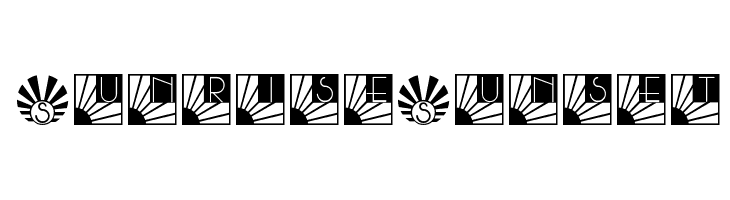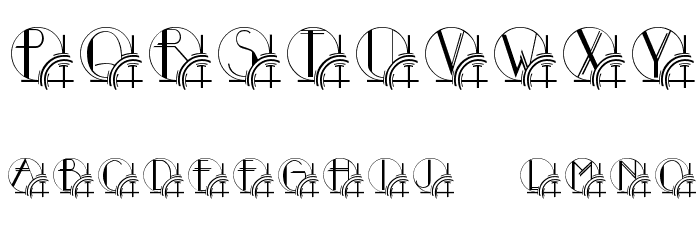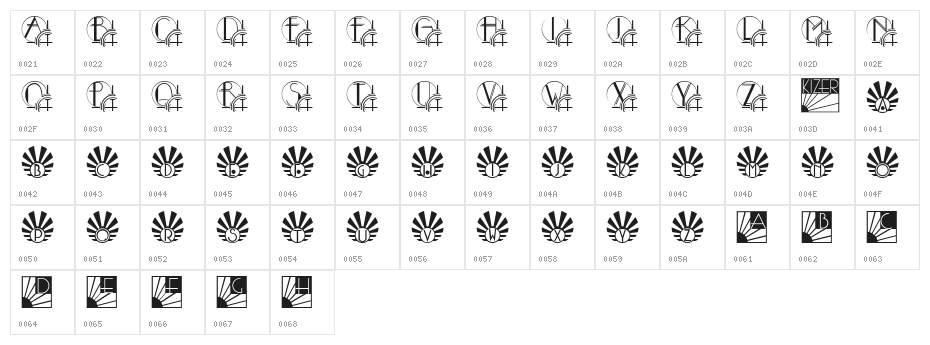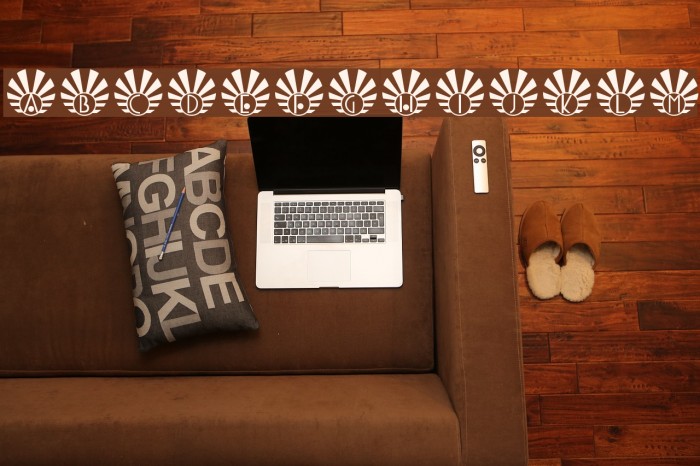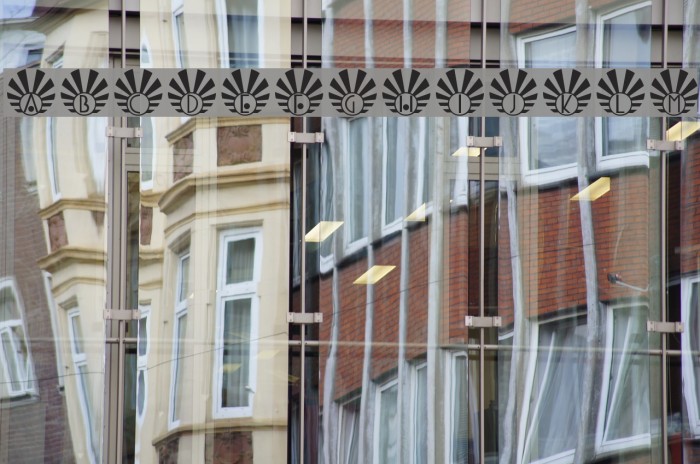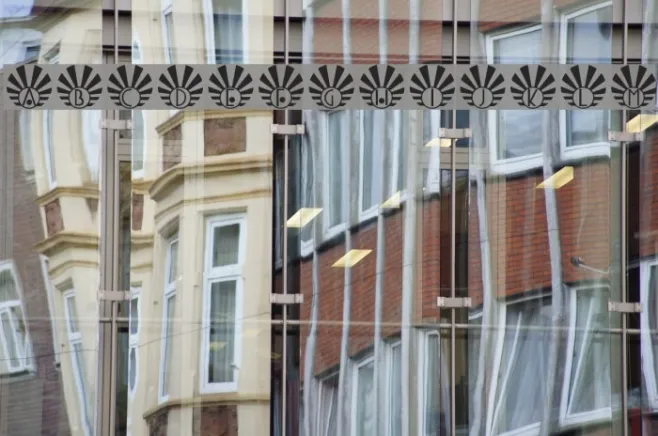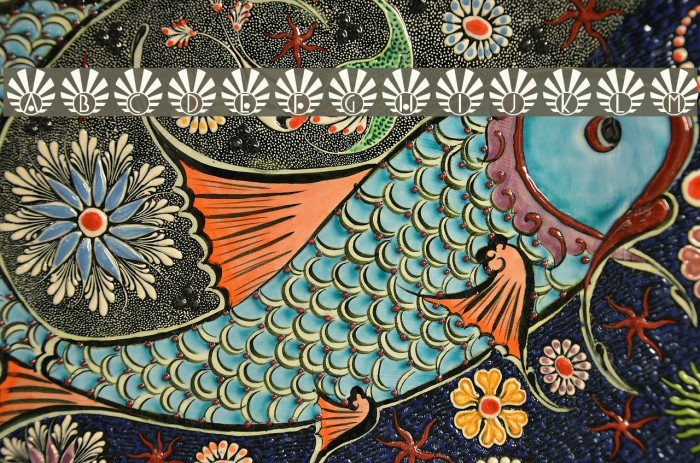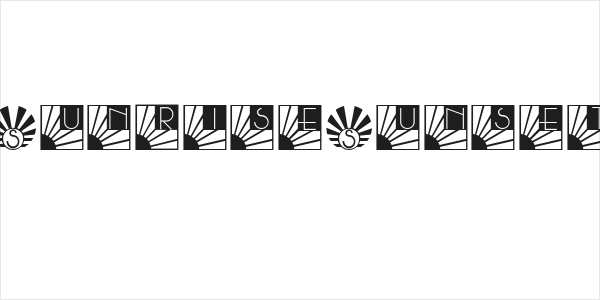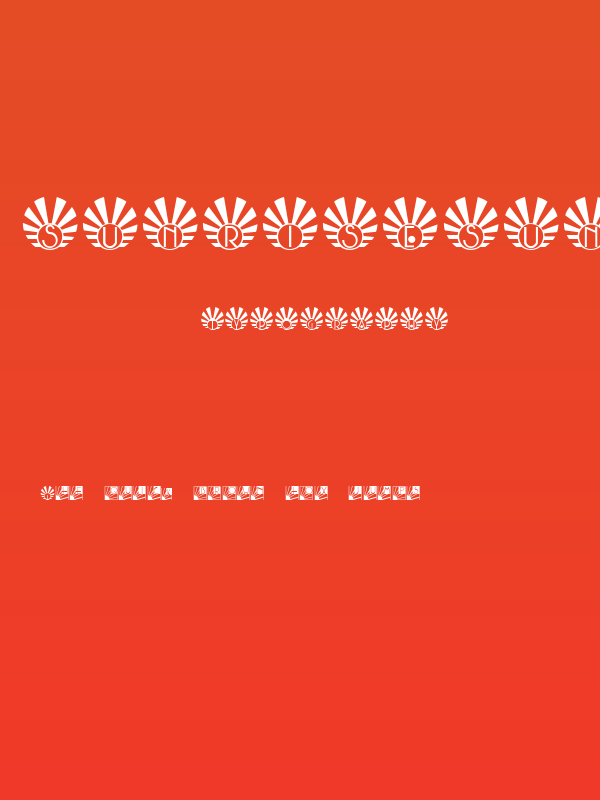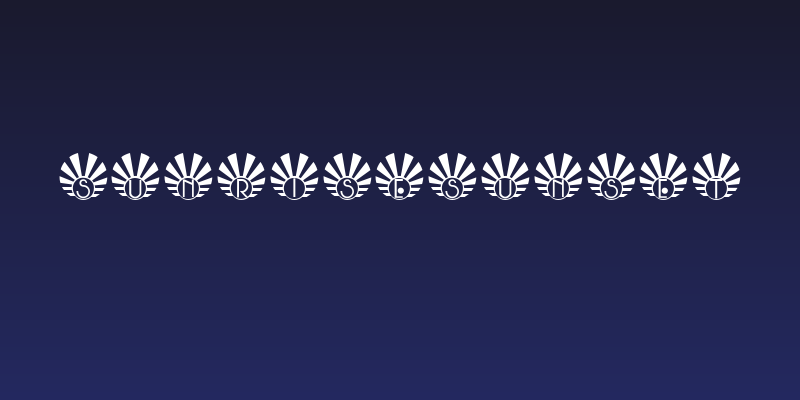
SunriseSunset Font
SunriseSunset Description
This font features a unique and artistic design, incorporating elements reminiscent of sunrises and sunsets. Each character is encased in a circular or square frame, with rays or waves extending outward, creating a dynamic and eye-catching effect. The letters are bold and geometric, with sharp angles and clean lines that add to the modern aesthetic. The use of contrasting black and white enhances the visual impact, making it suitable for striking displays. The overall style is decorative, with a strong emphasis on visual storytelling through its thematic design.
| Proposed Projects | Ideal for branding projects, event posters, or any design needing a bold, thematic statement. |